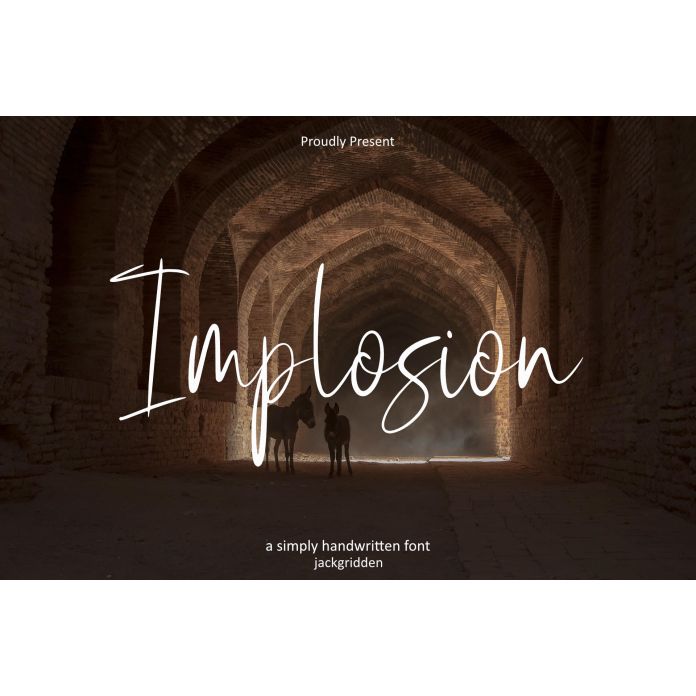
Implosion is a striking handwritten font that combines raw energy with artistic expression. With its dynamic, fluid strokes and powerful presence, this font captures the essence of motion, impact, and transformation. Whether you’re working on an event poster, branding, or creative project, Implosion adds a dramatic flair that demands attention.
Perfect for projects that require a bold statement, Implosion is ideal for headlines, logos, invitations, and anywhere you want to leave a lasting impression. Its unique, energetic style brings life to your designs with its hand-crafted imperfections and raw authenticity.